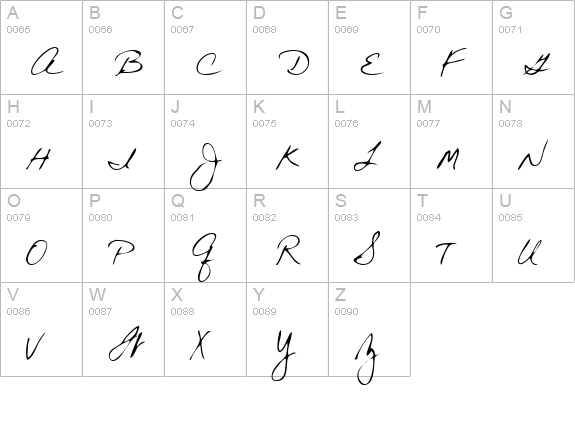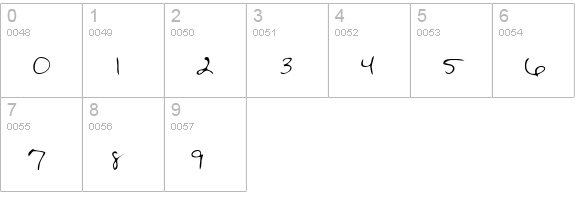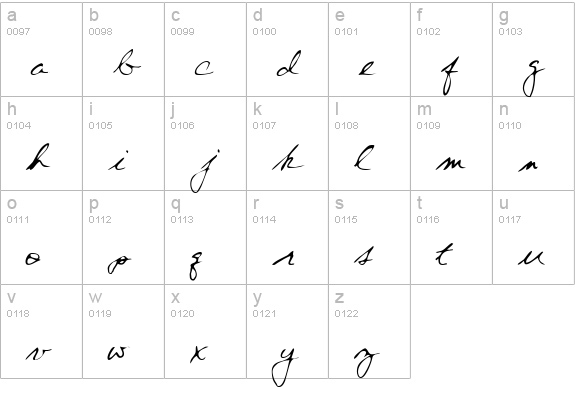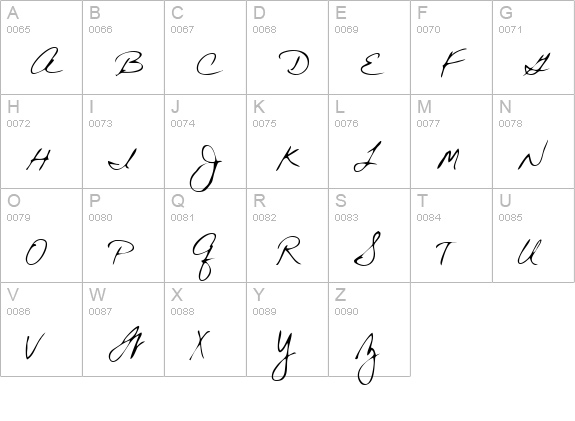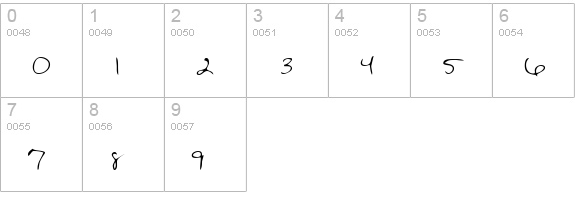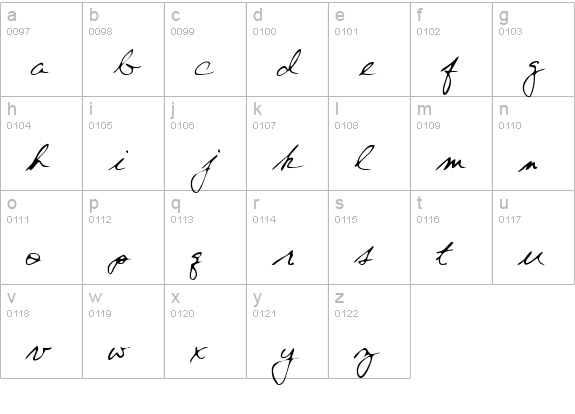
MerylsHand Font Details
MerylsHand font is a charming and versatile typeface that exudes elegance and sophistication. With its graceful curves and delicate strokes, this font is perfect for adding a touch of refinement to any project. Whether you're designing invitations, branding materials, or social media graphics, MerylsHand font will elevate your work to the next level. What's even better is that MerylsHand font is available for free download at FontsMarket.com. Yes, you read that right - this exquisite font is yours to use at no cost. Don't miss out on the opportunity to enhance your designs with the timeless beauty of MerylsHand font. Download it today and let your creativity shine!